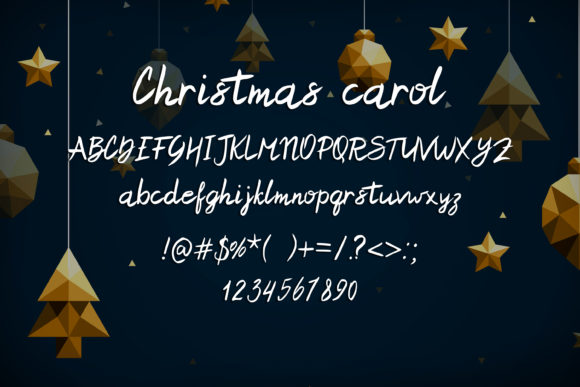
Christmas Carol Font
About Christmas Carol Font
Christmas Carol is a thin and dreamy handwritten font. This gentle font will look lovely on a variety of design ideas. It will add a neat and romantic touch to each of your projects!